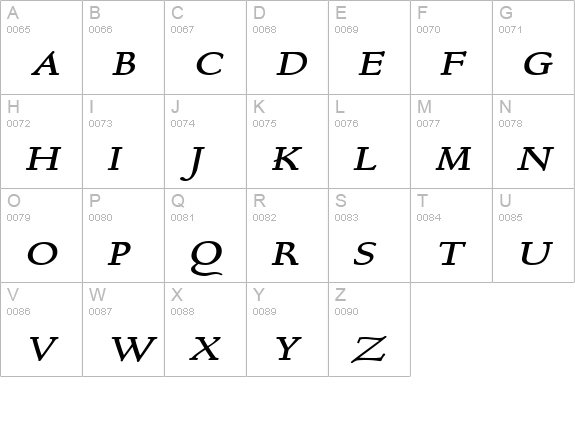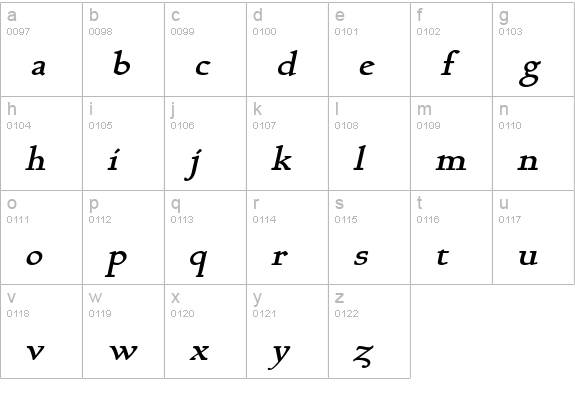
Bravo-Extended Bold Italic is a strong, high-contrast, extended-width, italic variant in the Bravo typeface family \xE2\x80\x94 well suited to headlines, attention-grabbing titles, and strong calls-to-action.
Bravo-Extended Bold Italic font is a striking and powerful typeface that exudes confidence and sophistication. Its bold and slanted design adds a touch of drama to any project, making it perfect for headlines, titles, and other display purposes. The extended letterforms give it a modern and dynamic look, while the italic styling adds a sense of elegance and flair. Best of all, Bravo-Extended Bold Italic font is available for free download at FontsMarket.com. Whether you're working on a branding project, designing a poster, or creating a website, this versatile font will make a bold statement and leave a lasting impression. Download Bravo-Extended Bold Italic font today and elevate your designs to the next level.